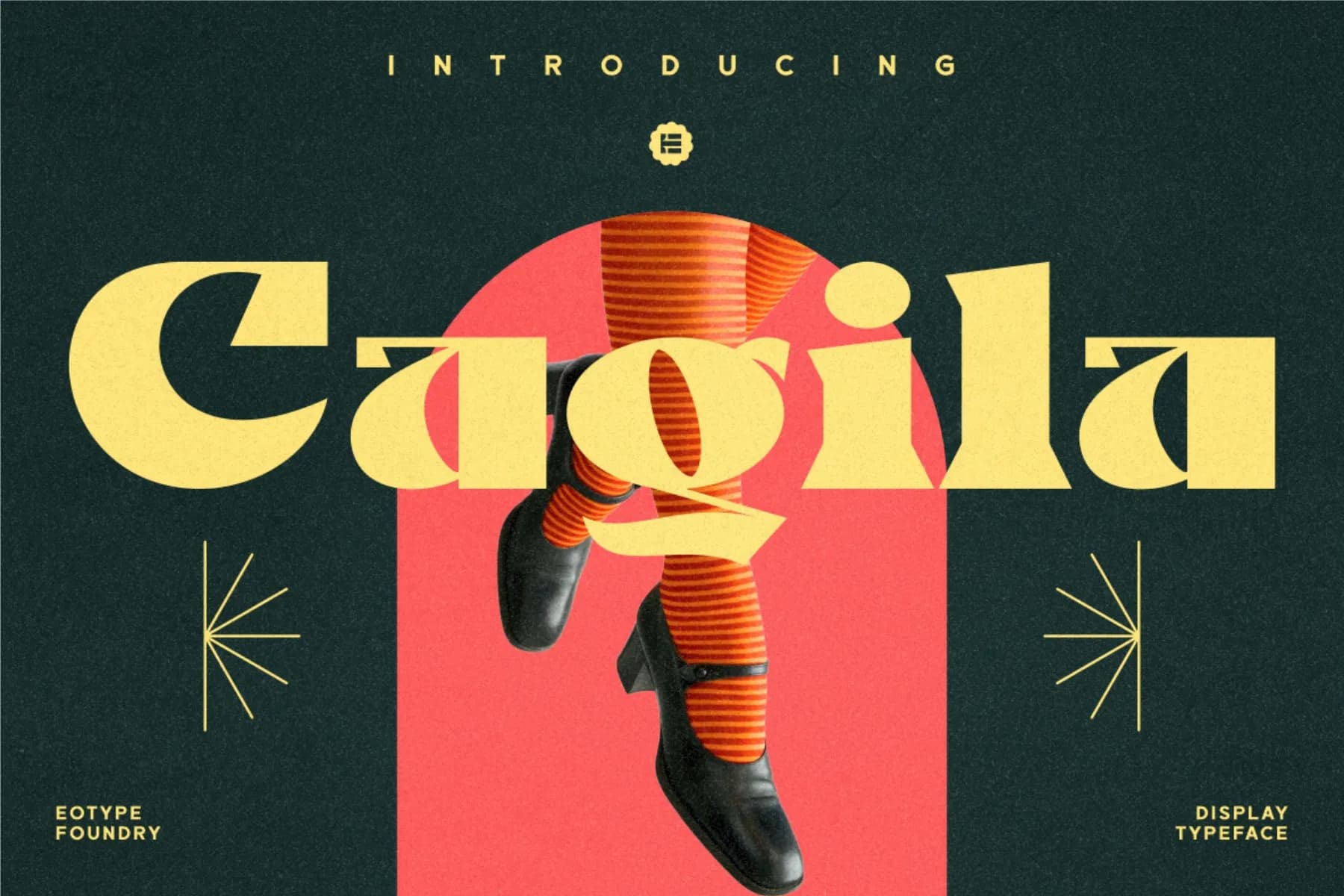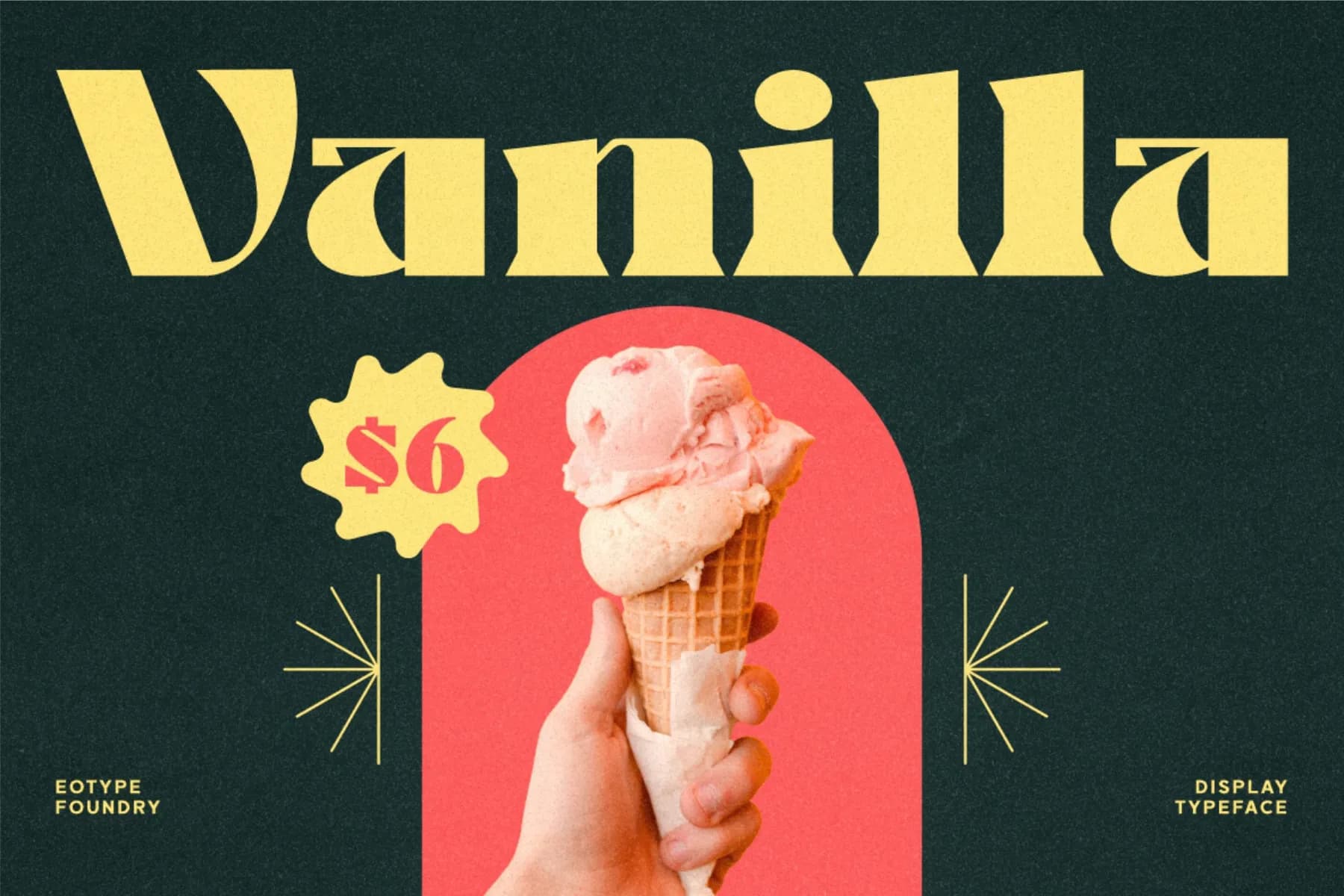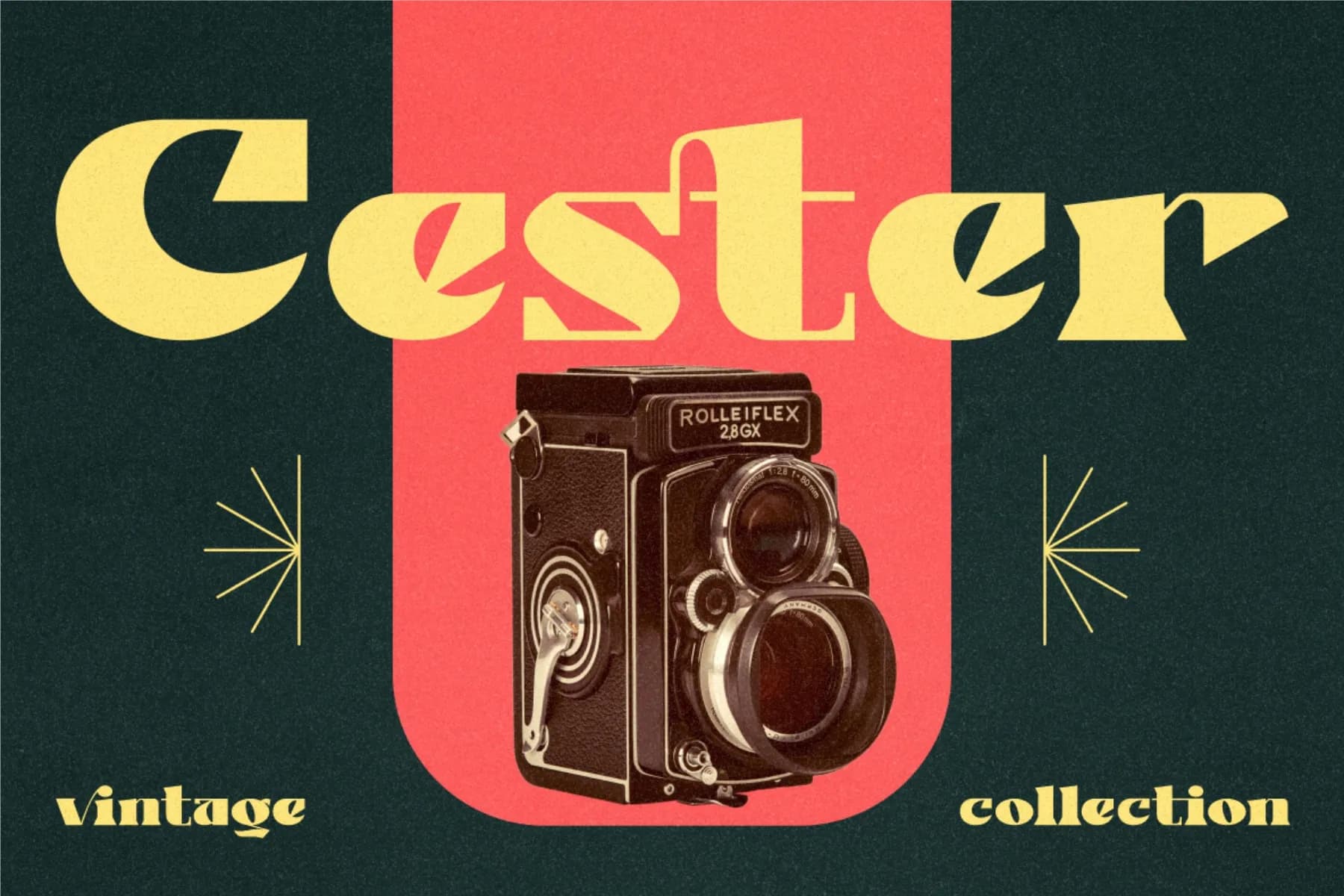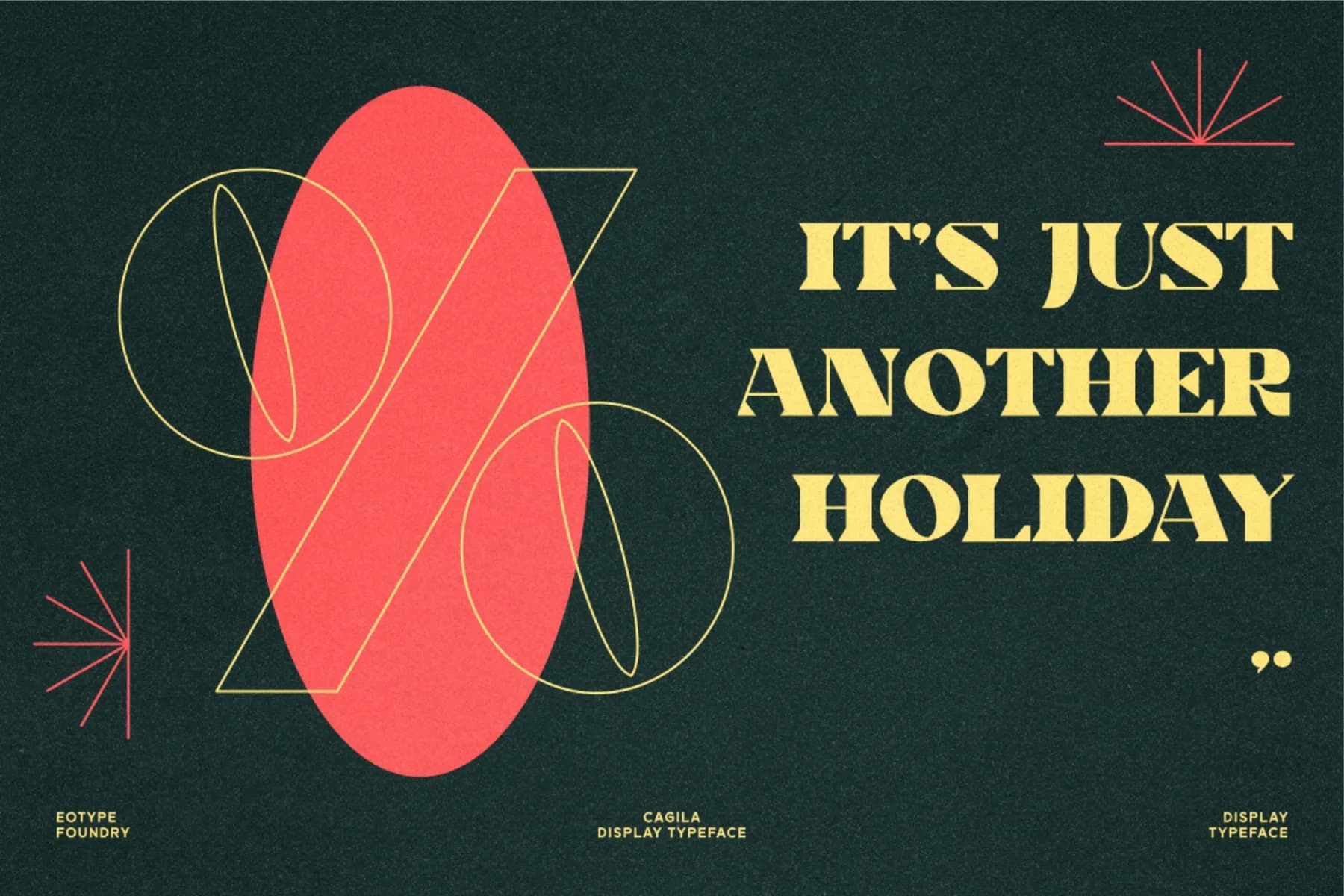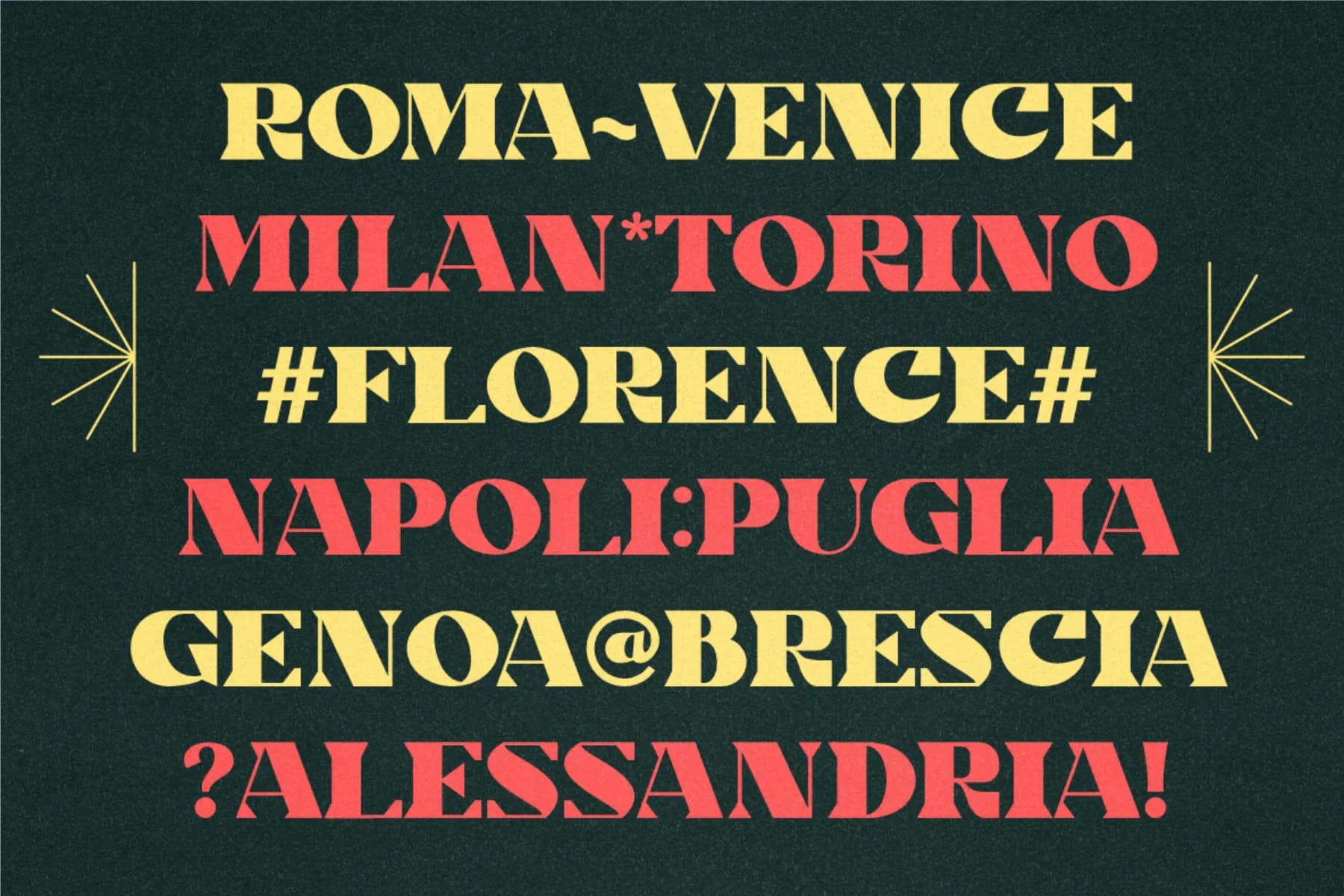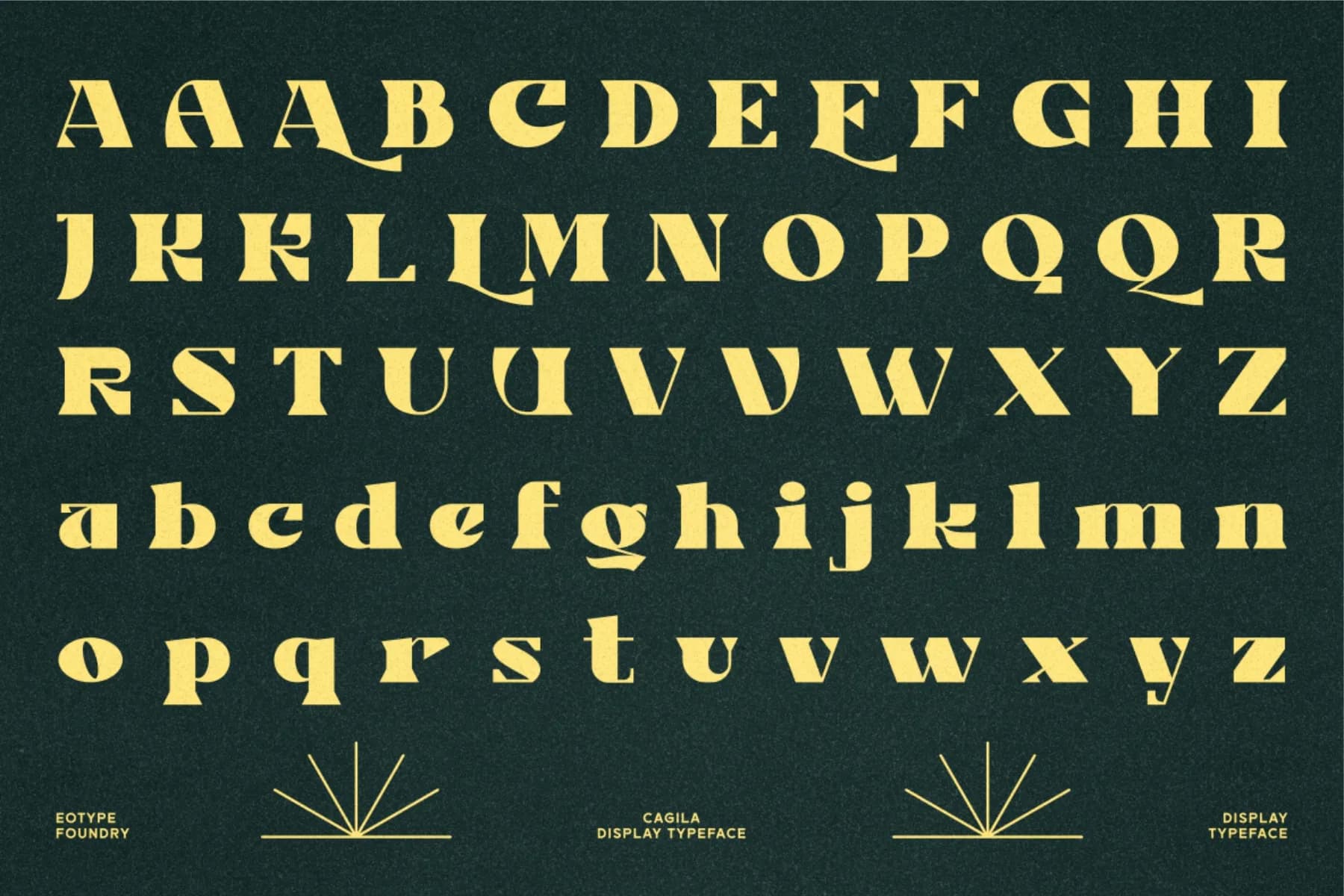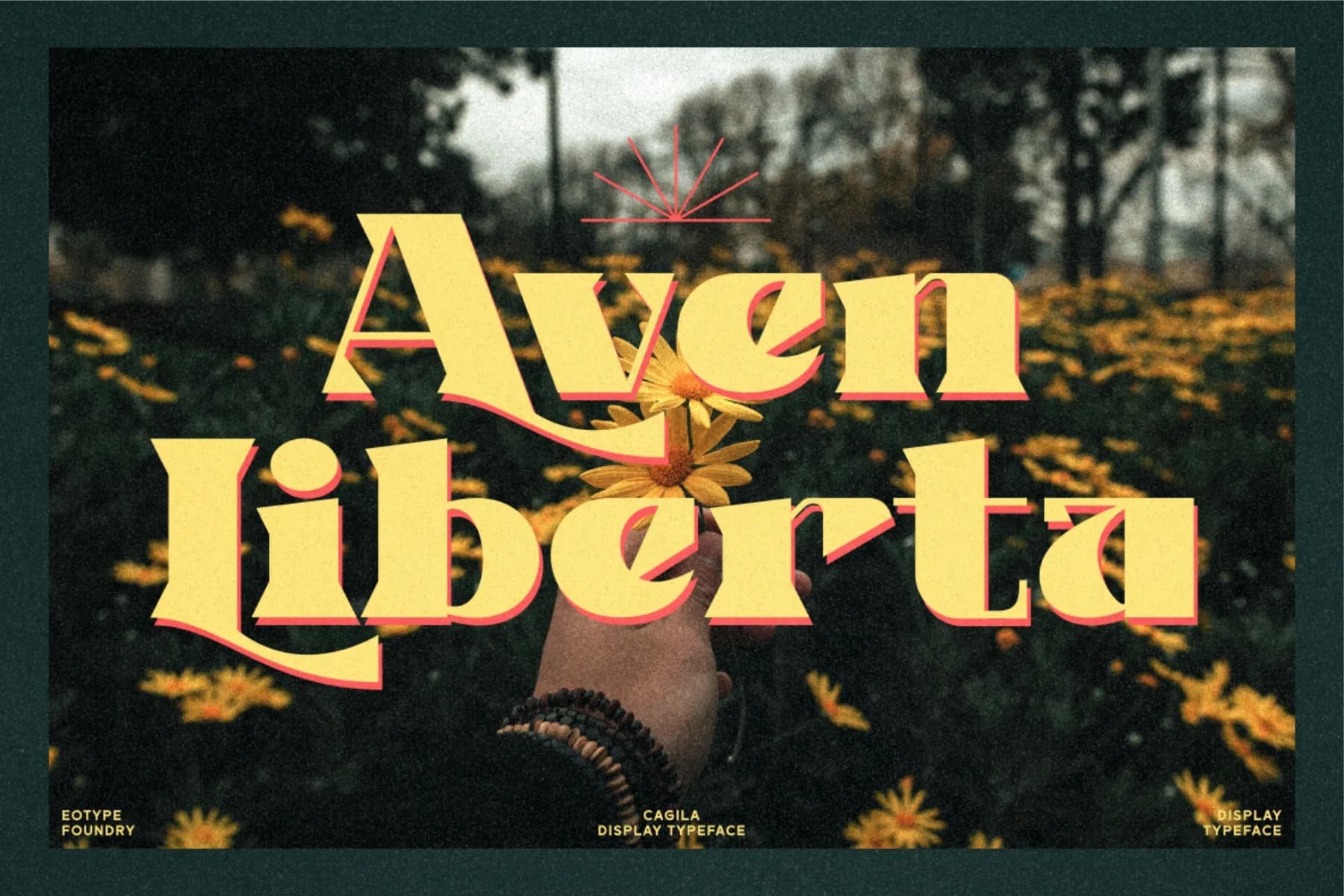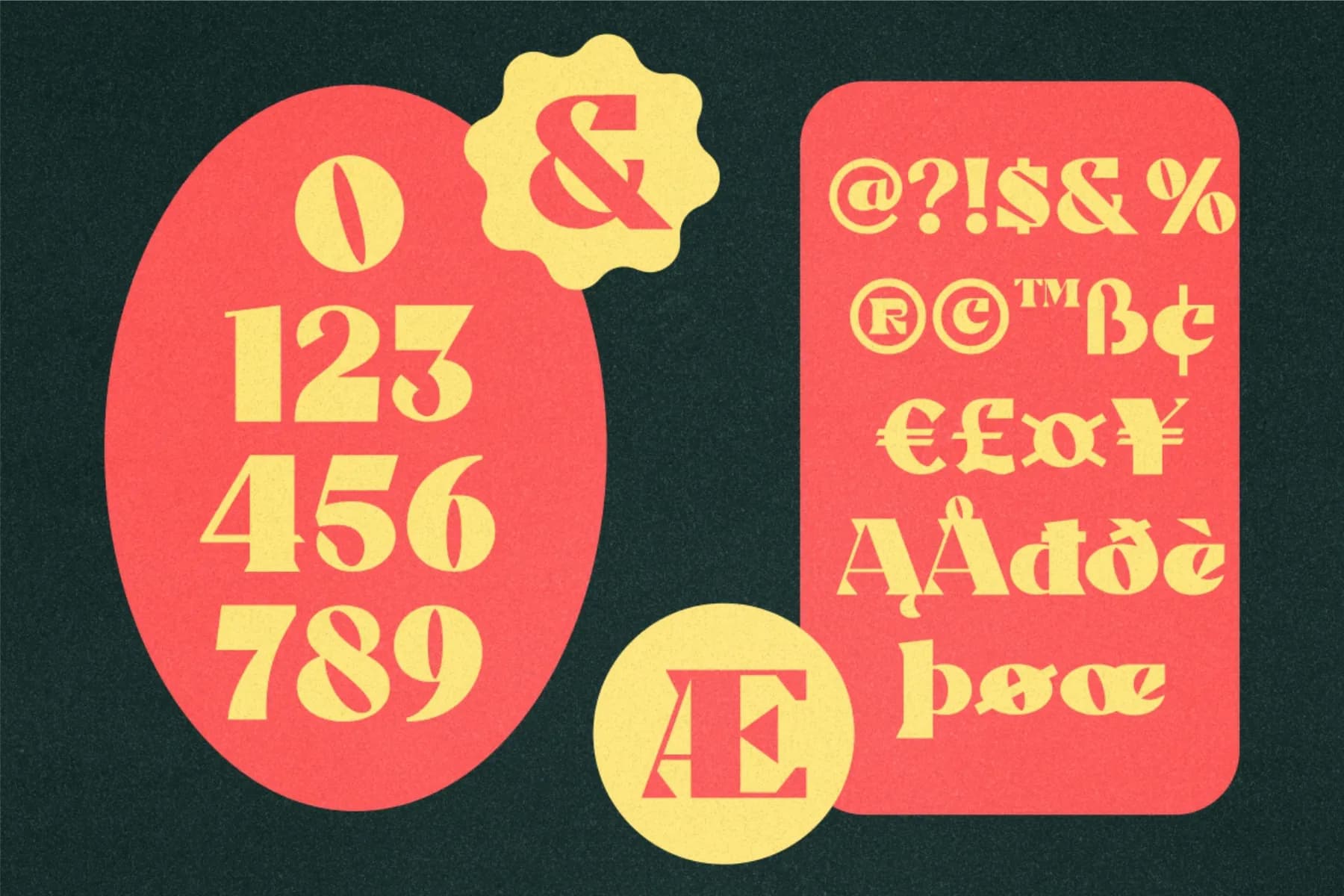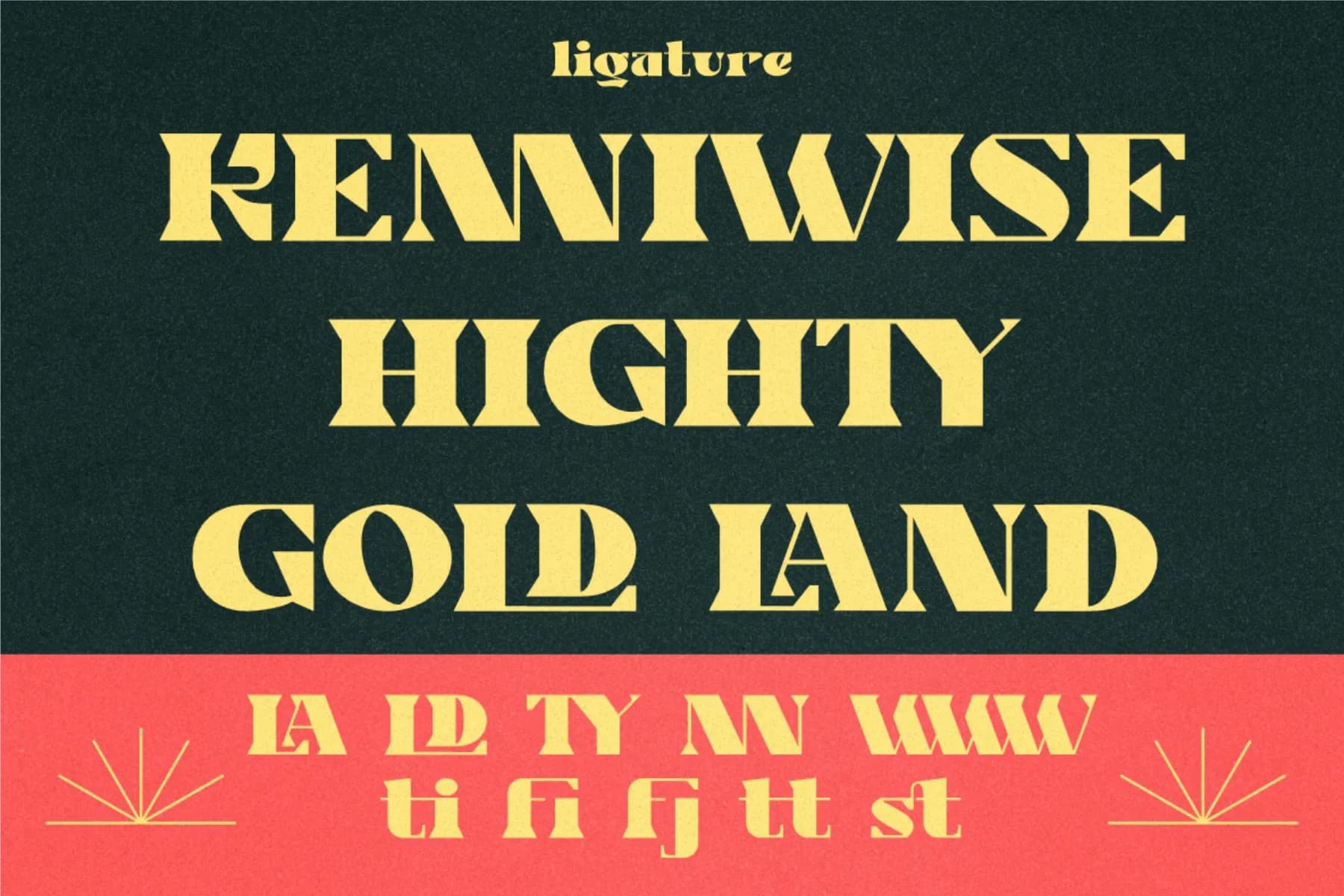
Cagila Display Font
Cagila is a versatile, Vintage and elegant serif font. Designed by Eotype Foundry, It has a unique style with stylistic, alternates, ligatures and supports multilingual languages.